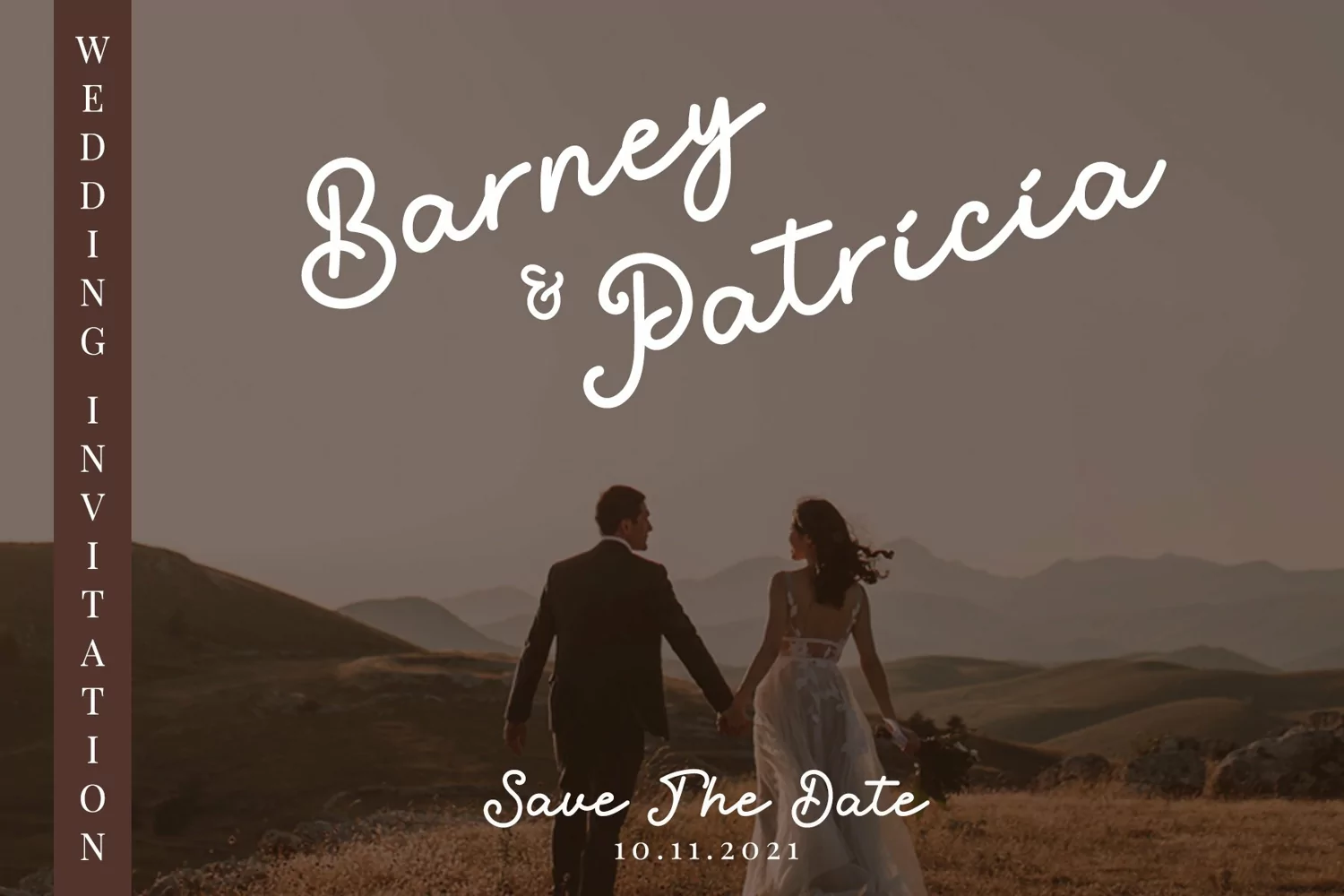
Talking Nice is simple monoline script with elegance and classiness. As its name, this font will be nice for any kind of your elegant design.
This font is so versatile for wide ranges of design projects, such as, branding, logo, signature, social media quotes, watermark, wedding, photography, and others.